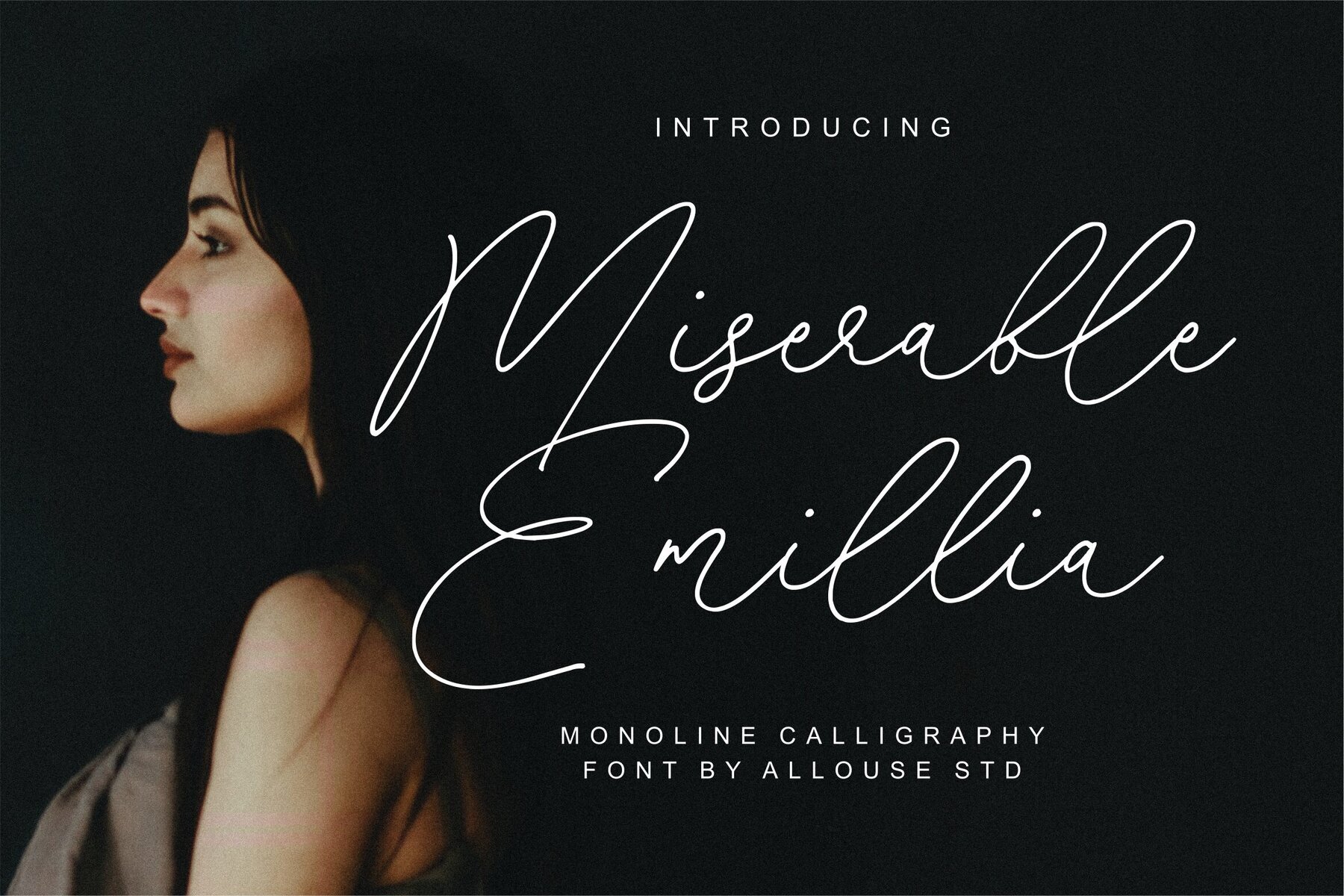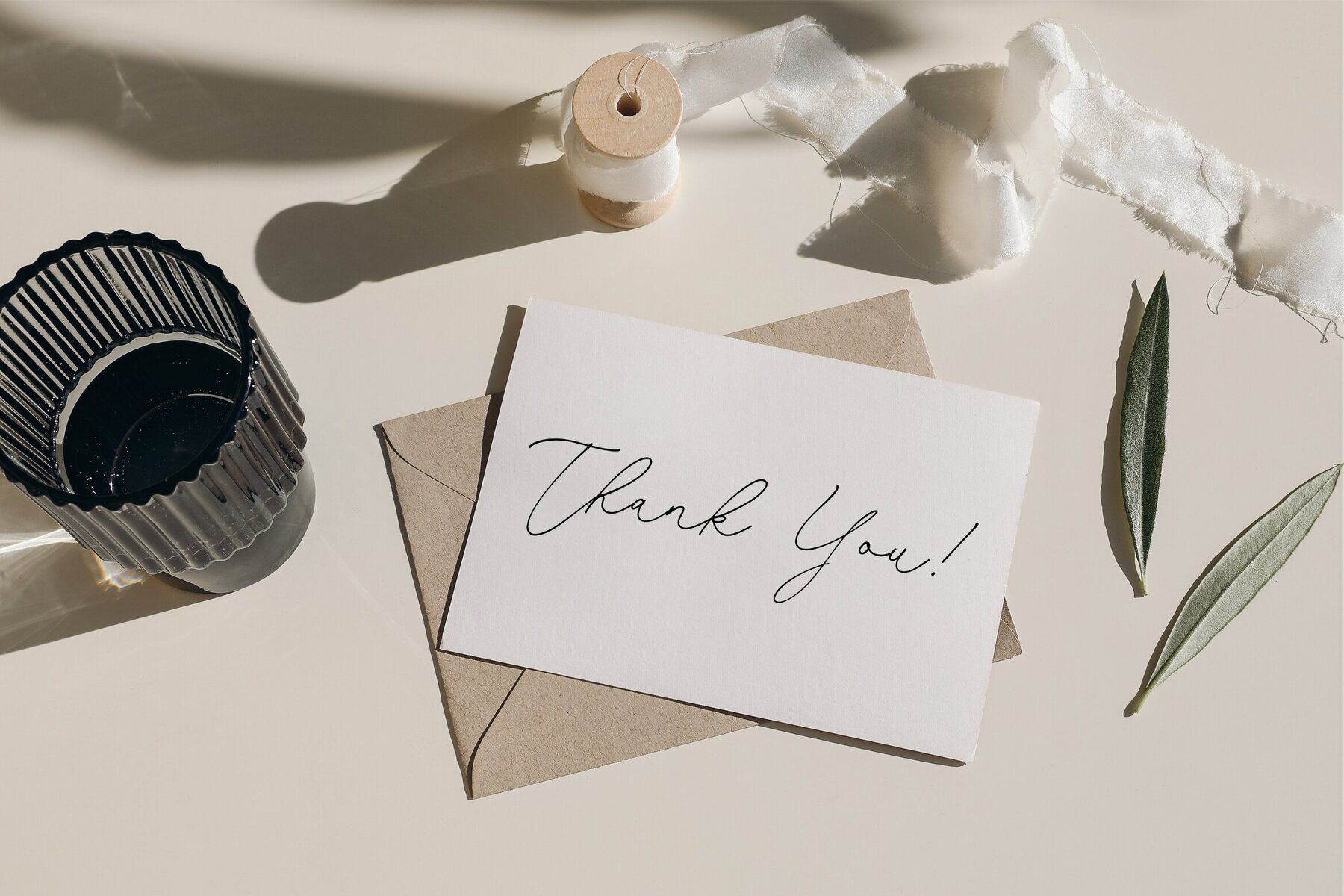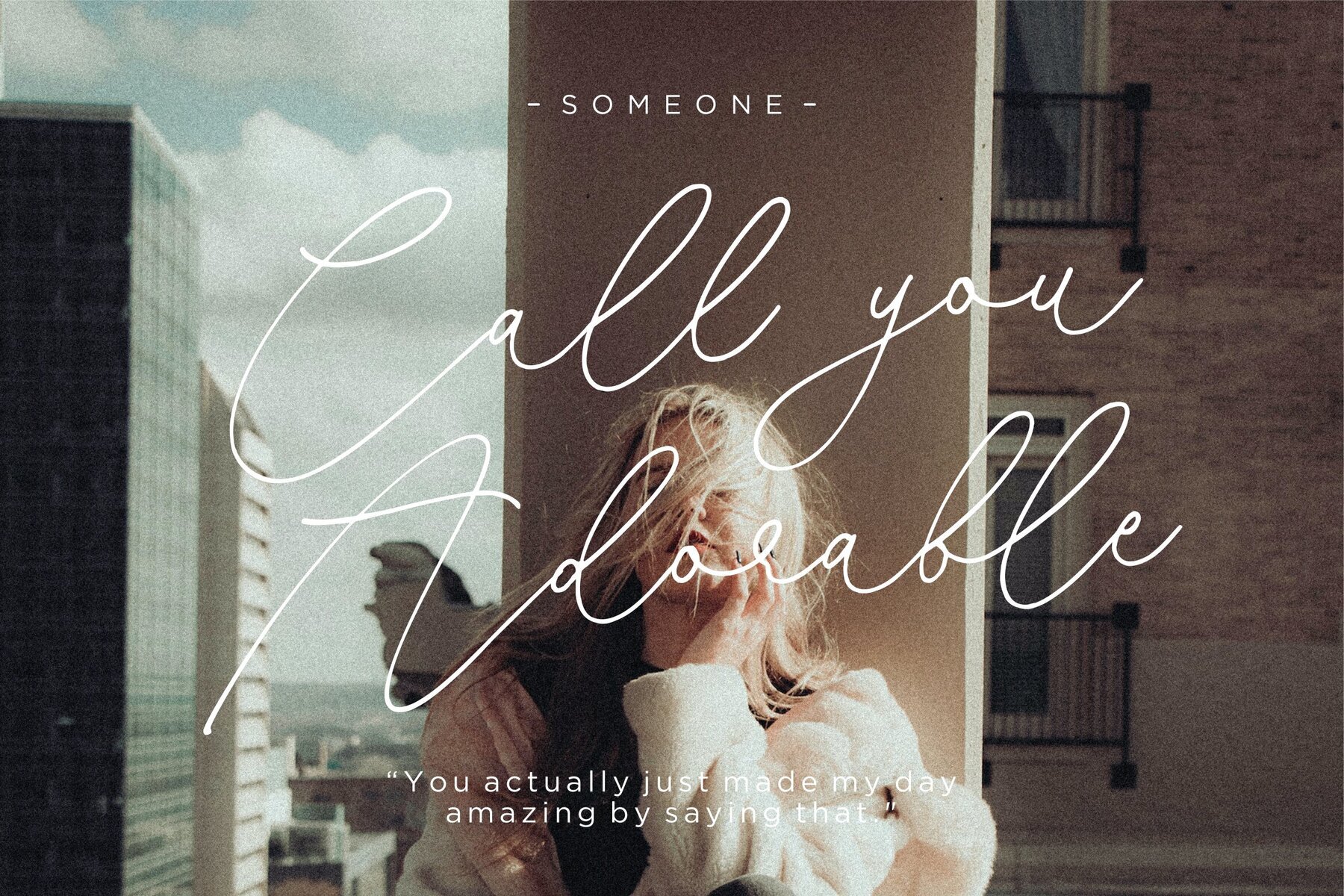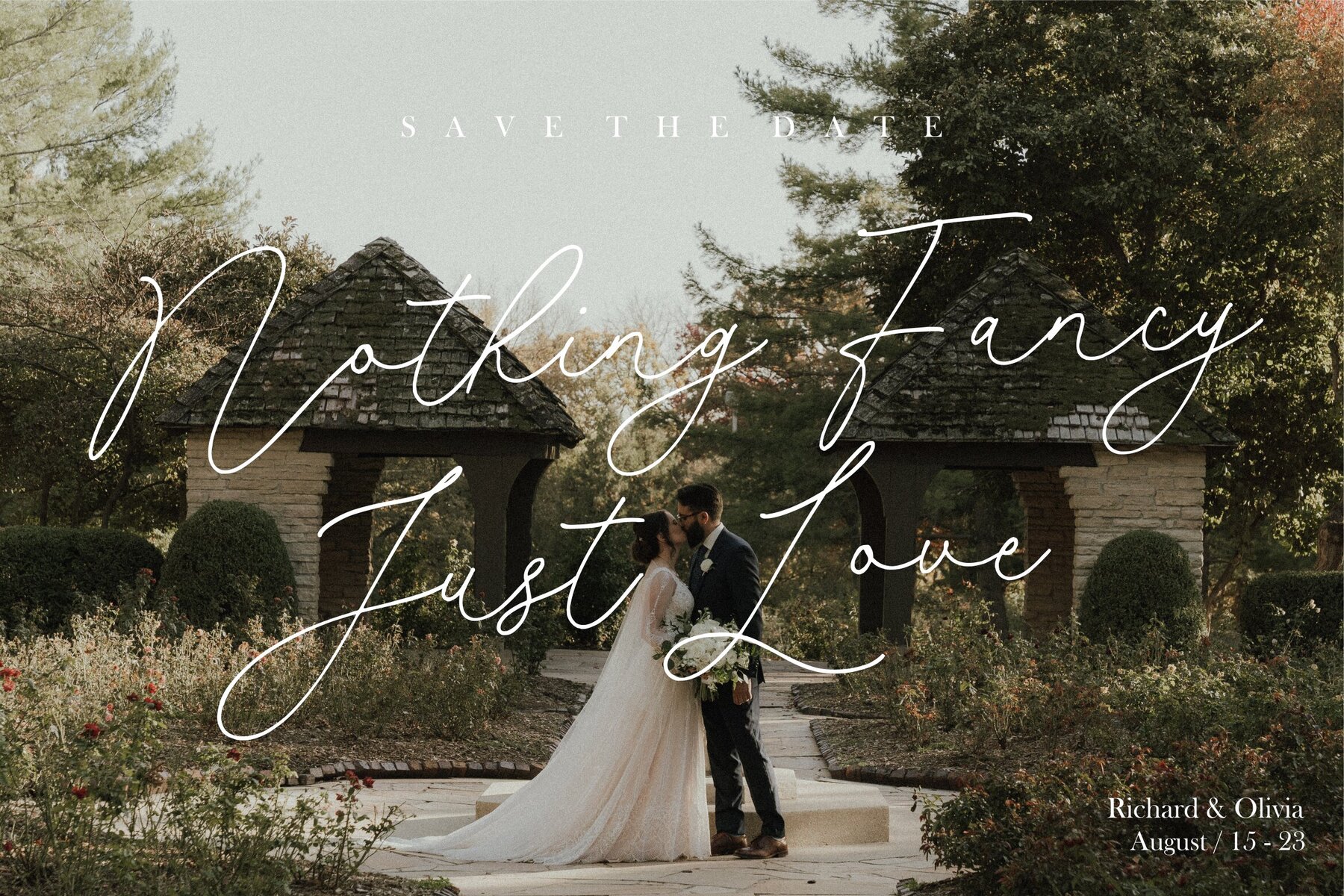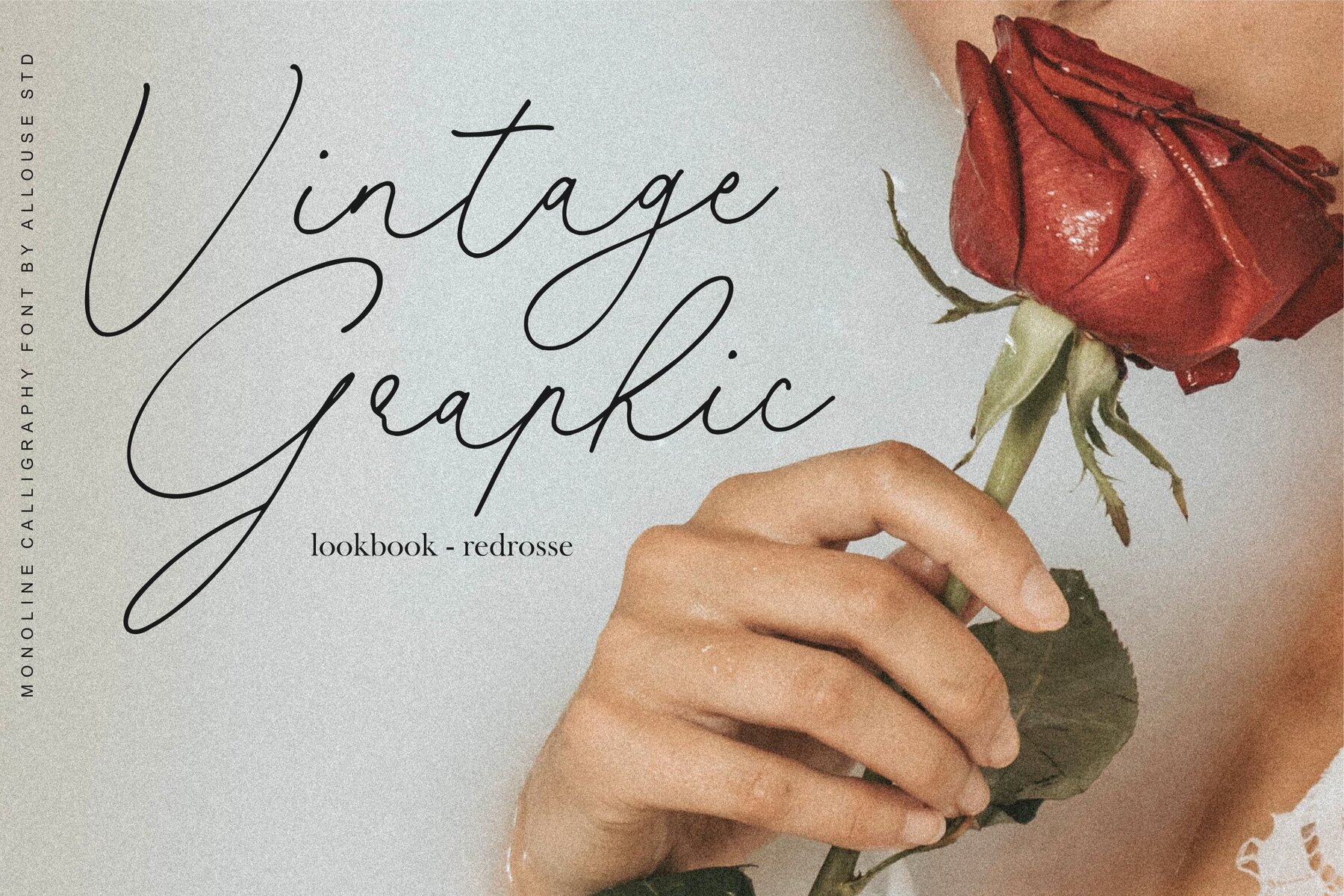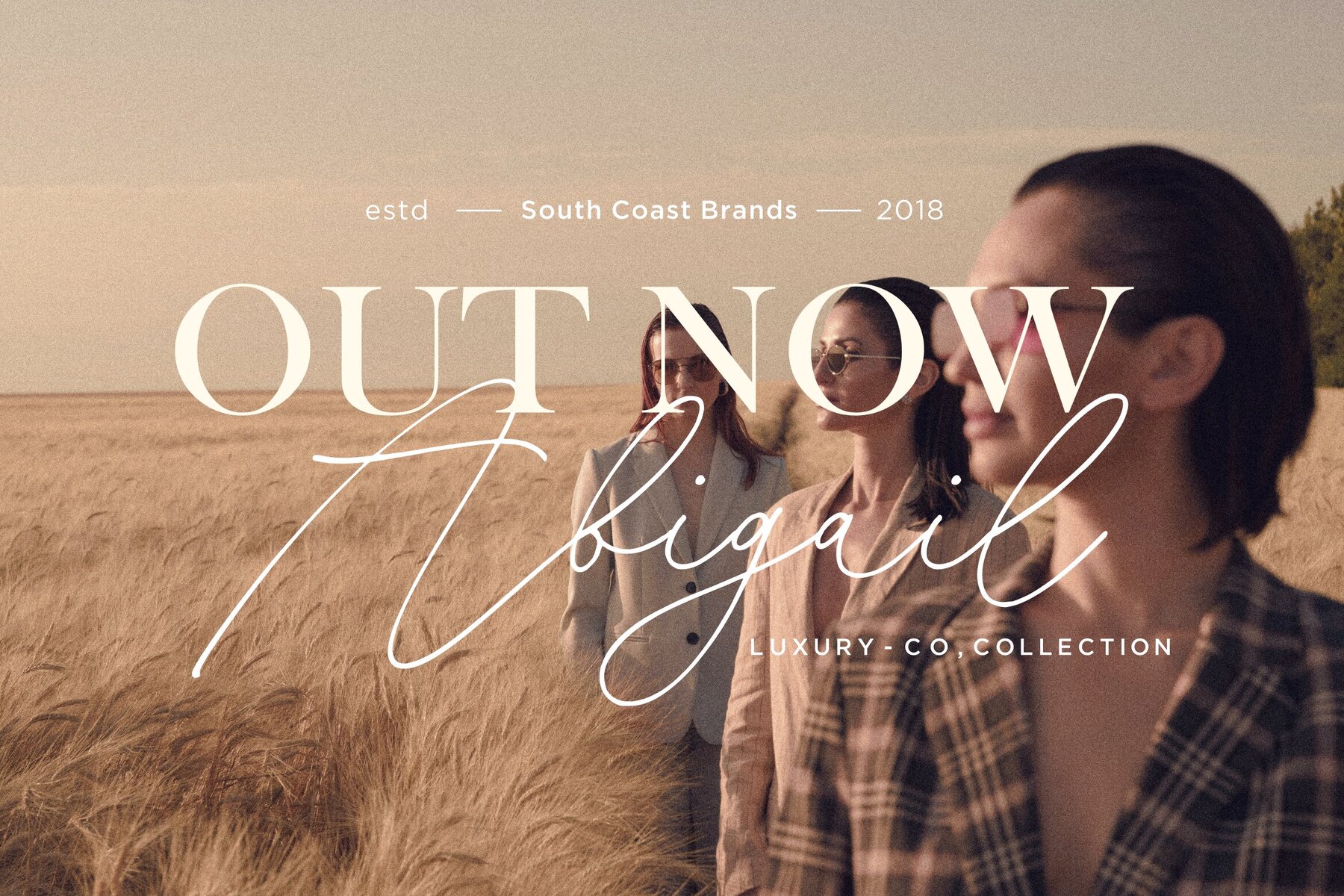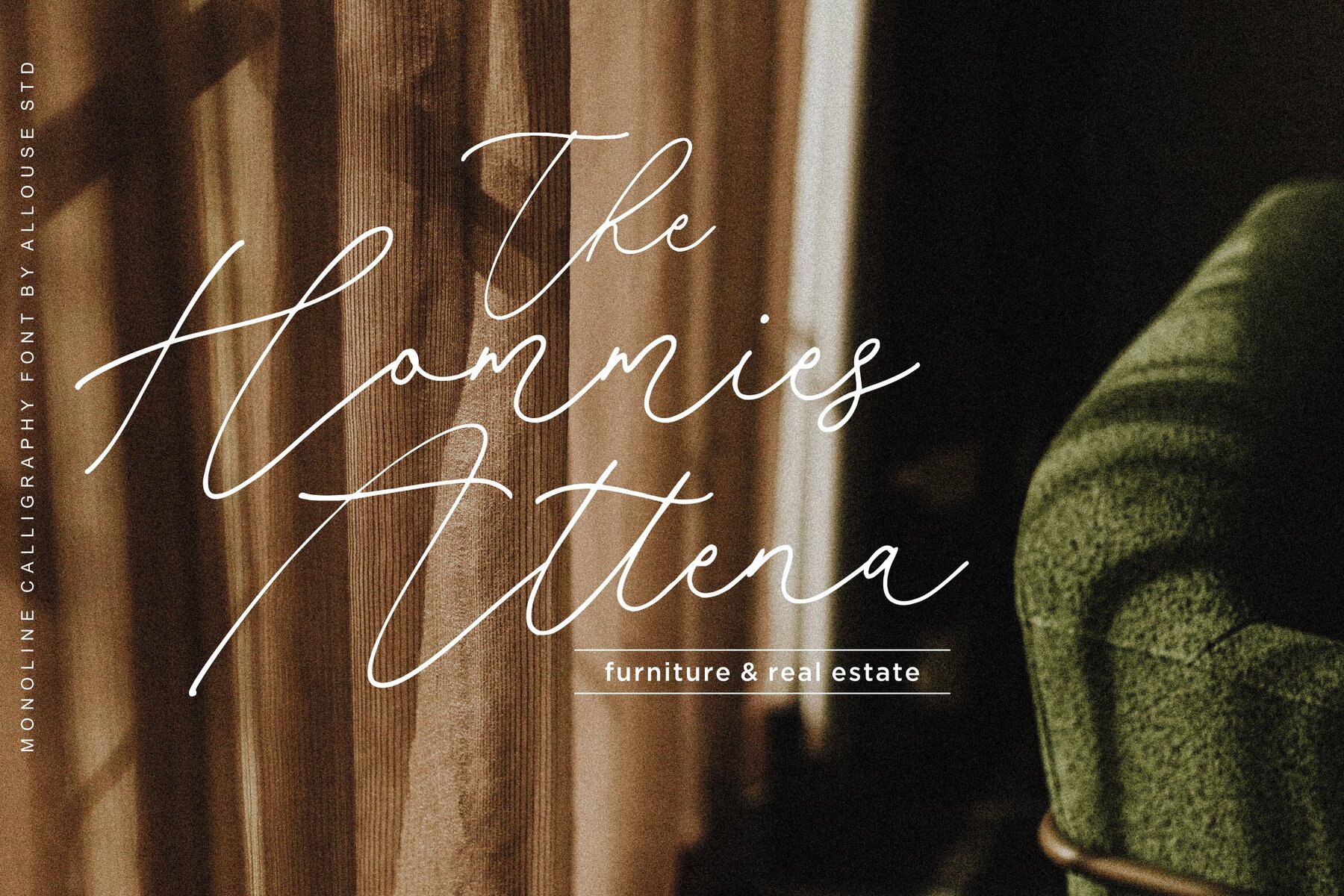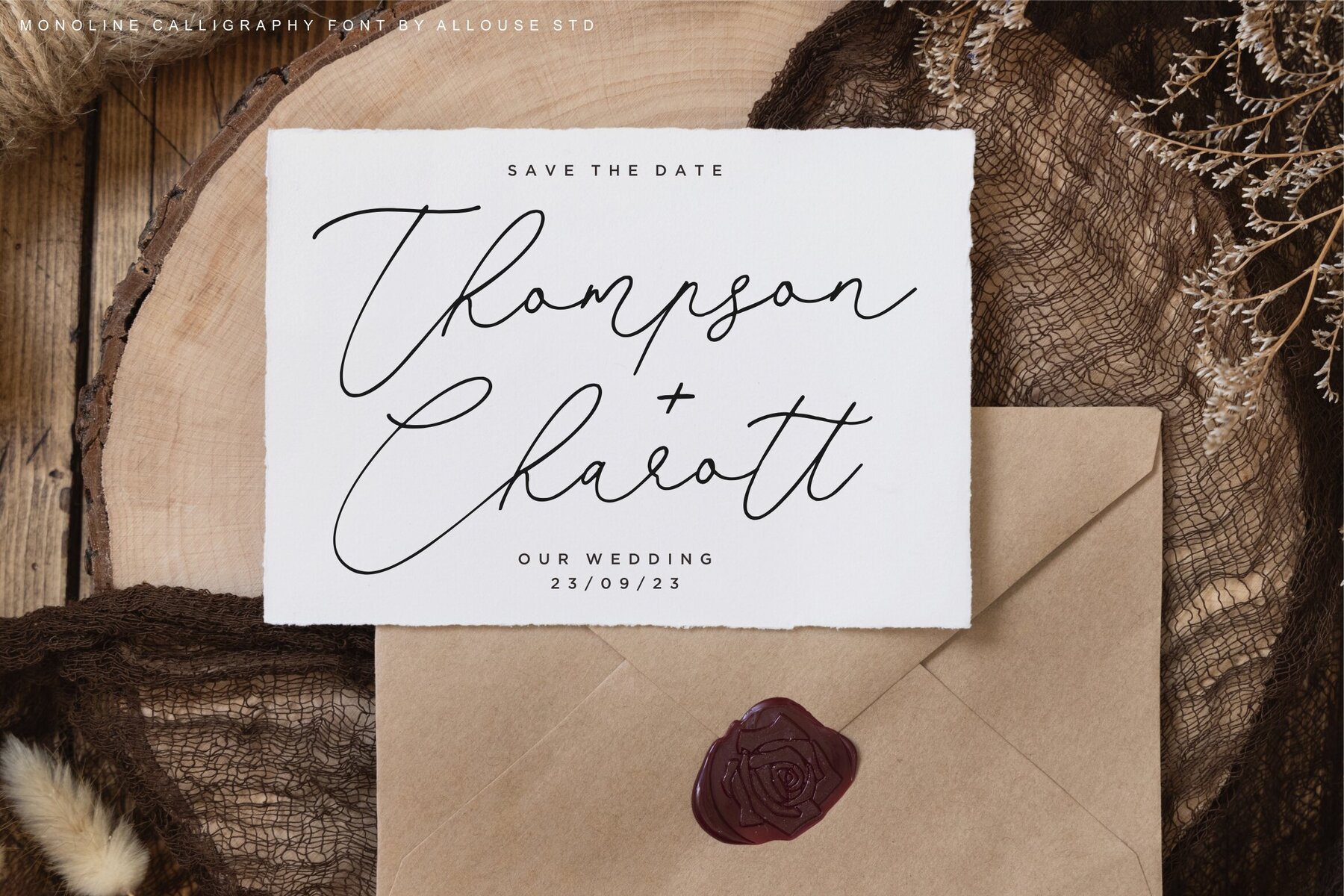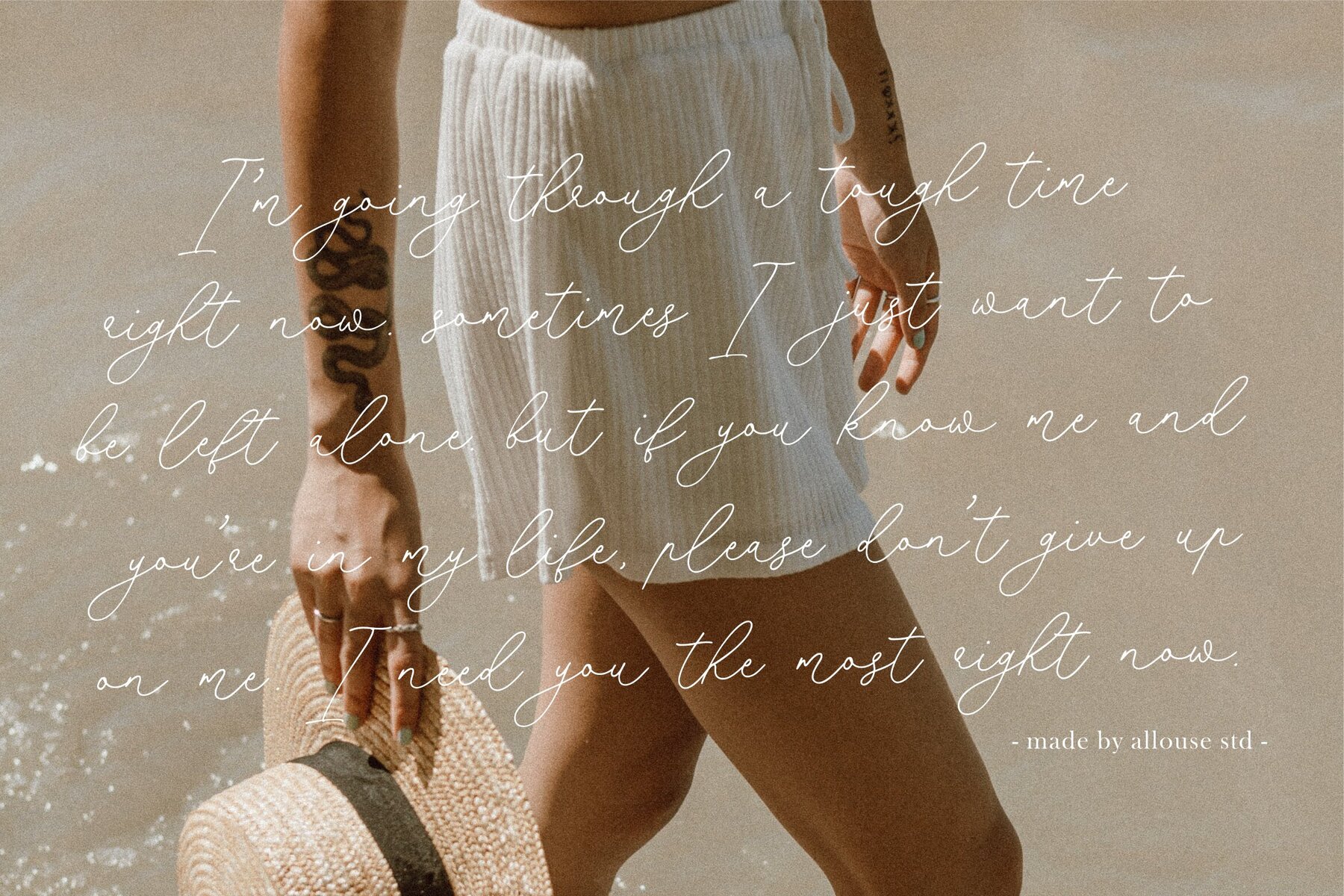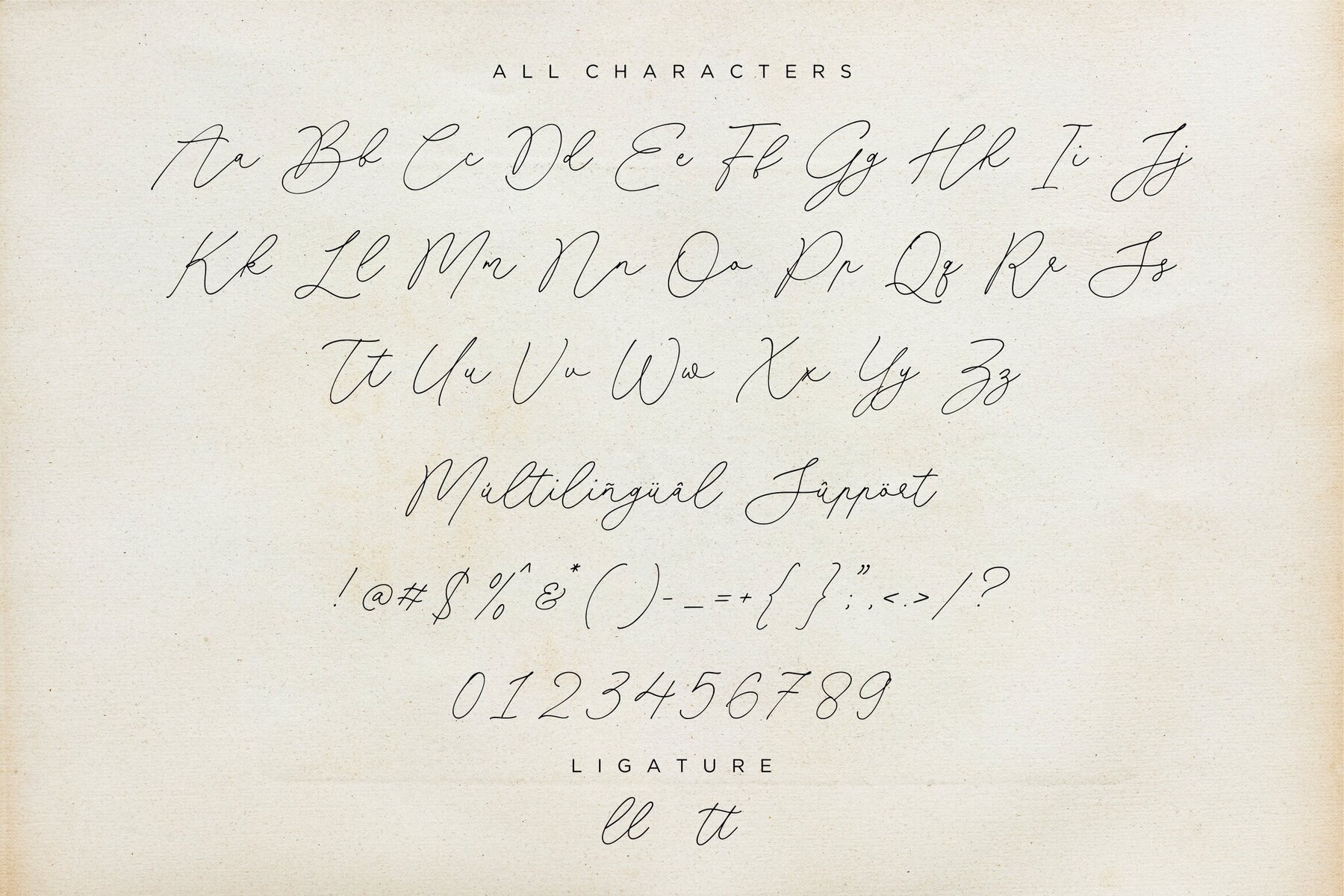
Miserable Emillia Font
Miserable Emillia
Miserable Emillia by Allouse.Studio is an exquisite font choice for a variety of design needs. Ideal for product packaging, branding projects, printed magazines, social media graphics, wedding stationery, and more, this font adds a touch of elegance and sophistication to any project.Miserable Emillia: Elegance in Typography